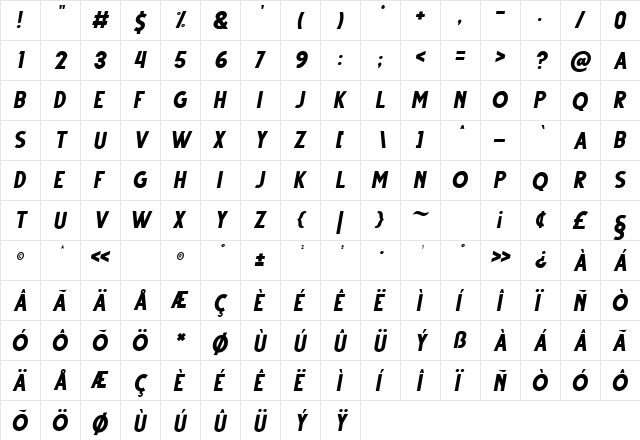
Gutter Bold Italic Font Preview
| Foundry | Andika Setiawan |
| Designer | Andika Setiawan |
Design Context for Gutter Typeface
Gutter takes a measured approach to typography — its balanced proportions and neutral character make it a reliable workhorse for both digital and print work. Its italic angle brings a sense of urgency and motion to the letterforms. Its bold stroke weight gives it real presence on the page.
Pro Tip: Try Gutter for annotation and caption copy alongside an upright companion — the contrast in angle creates a dynamic but ordered typographic system.